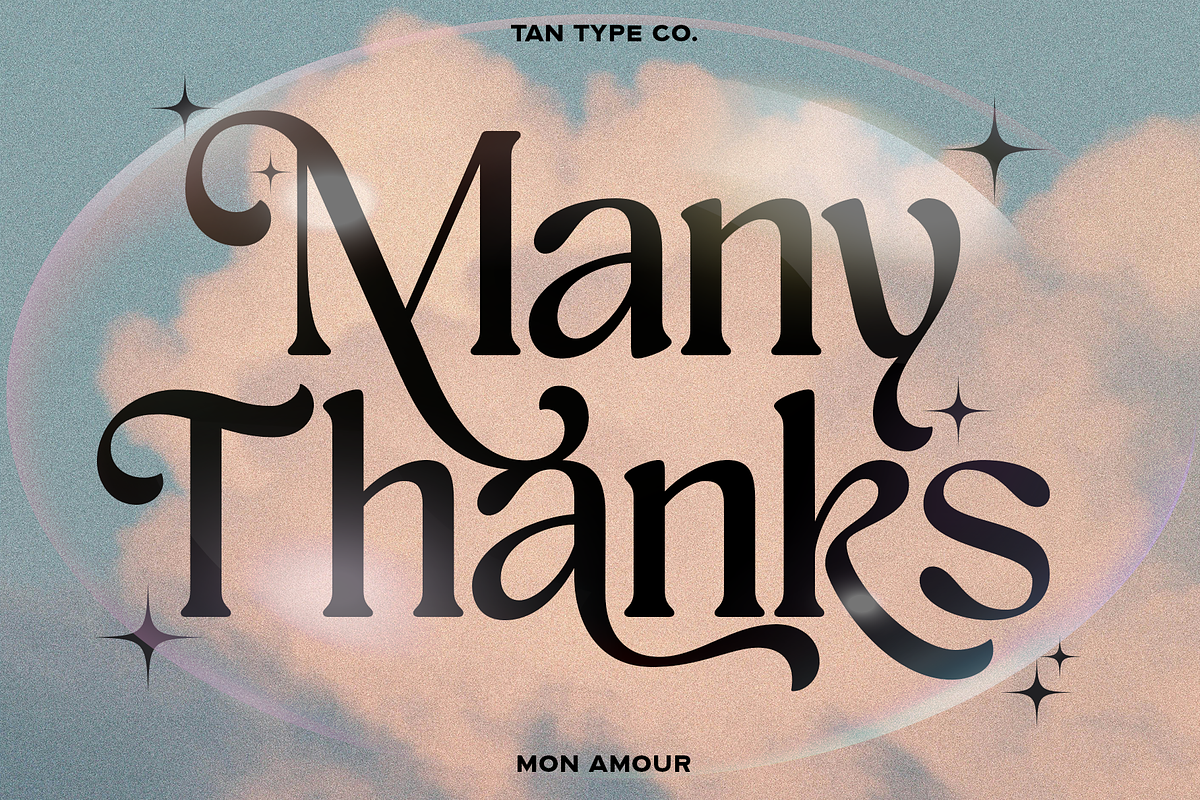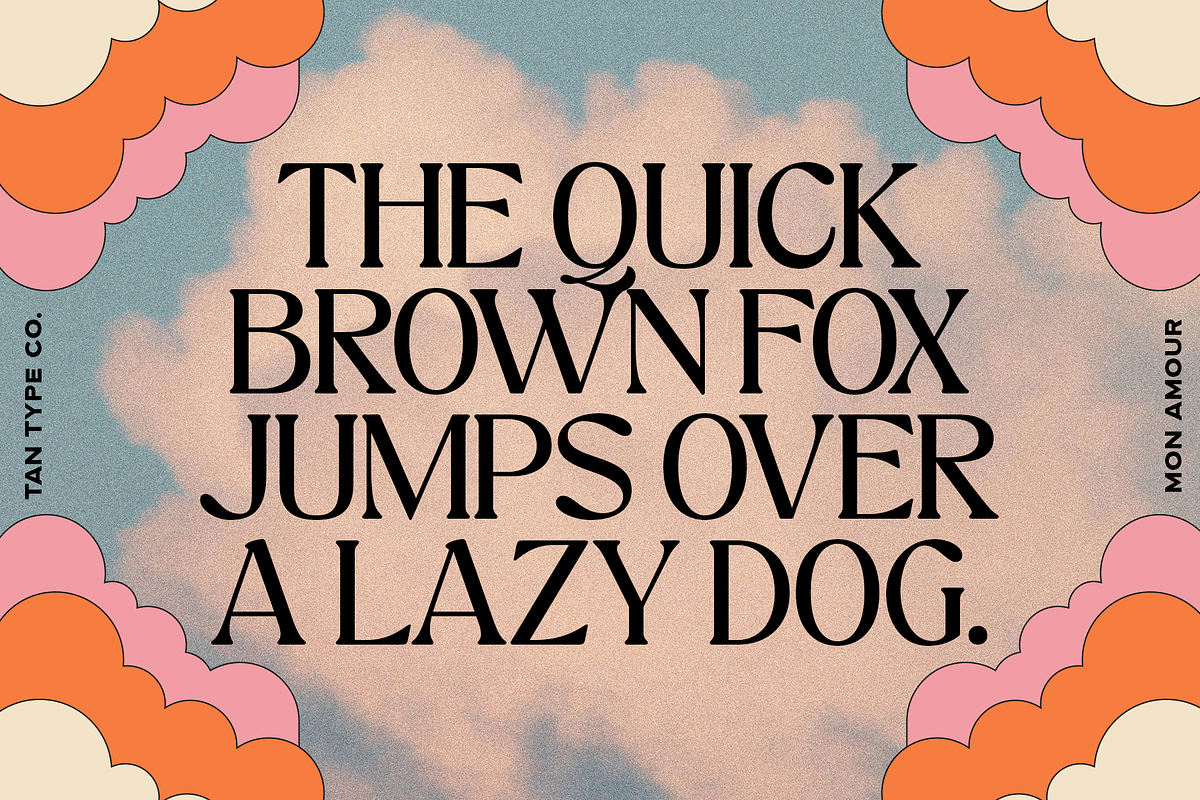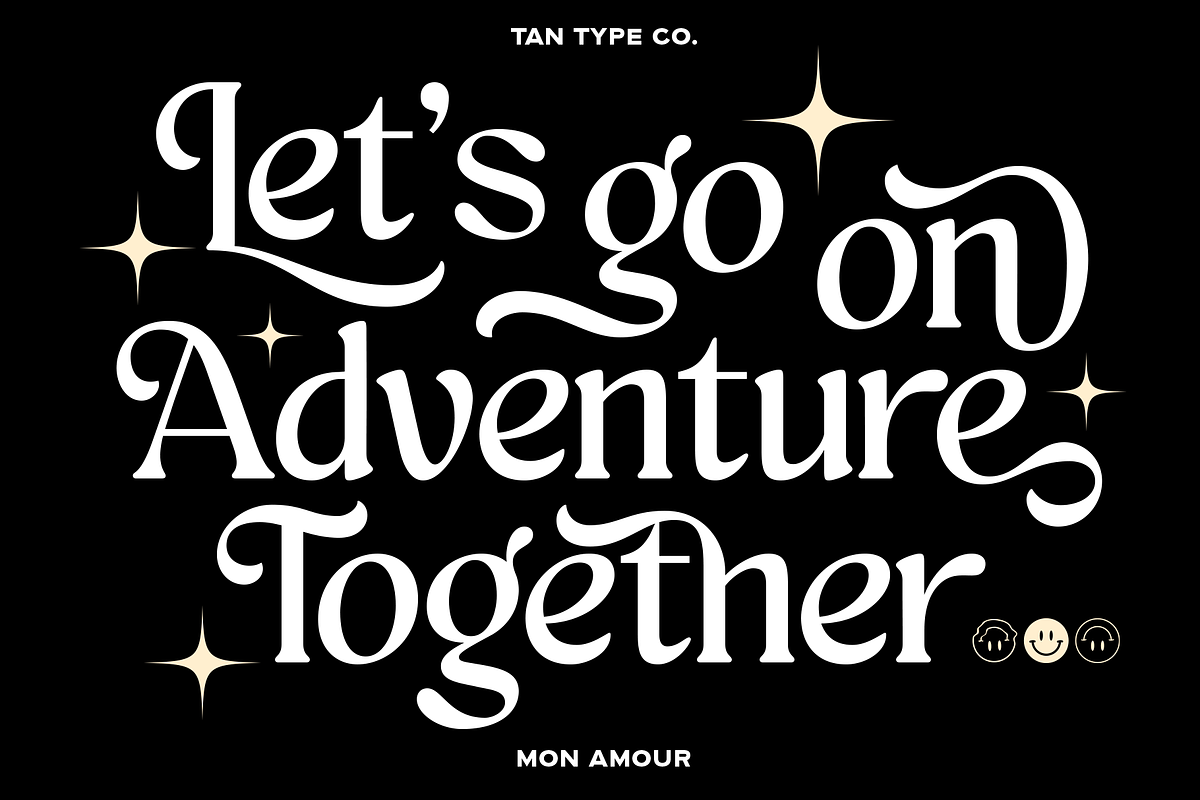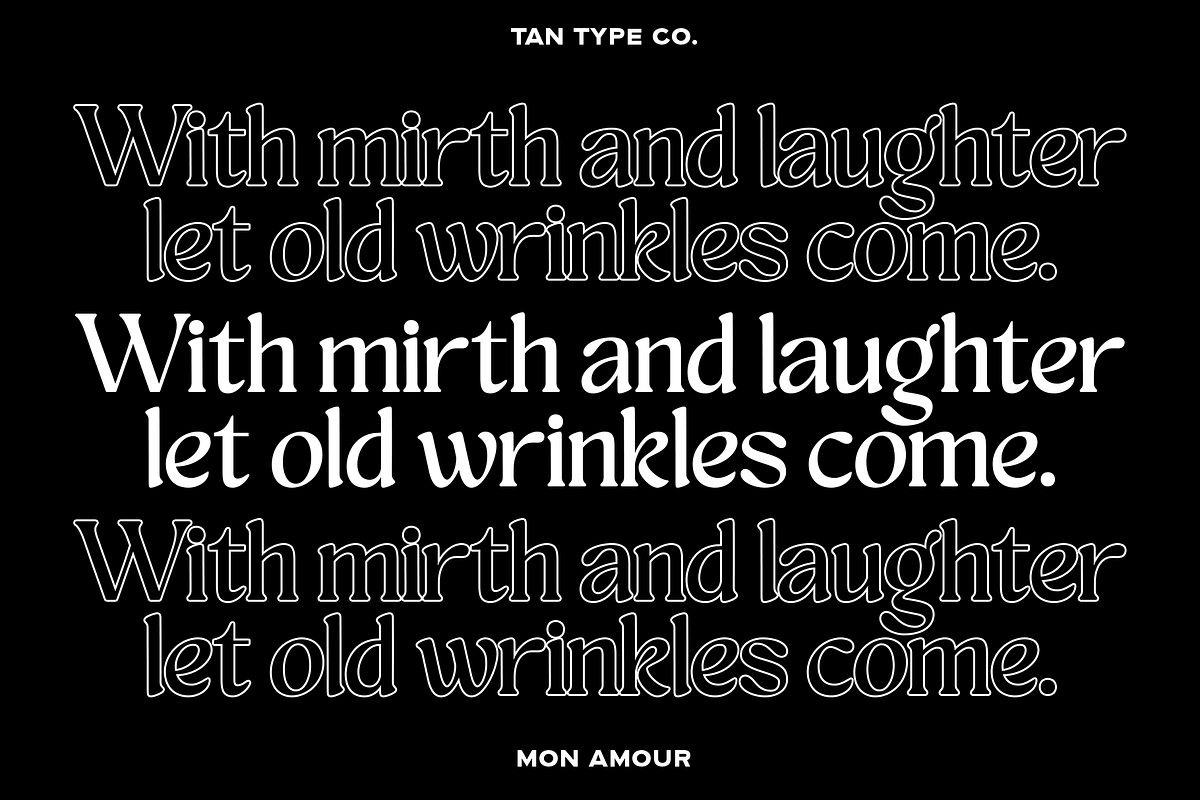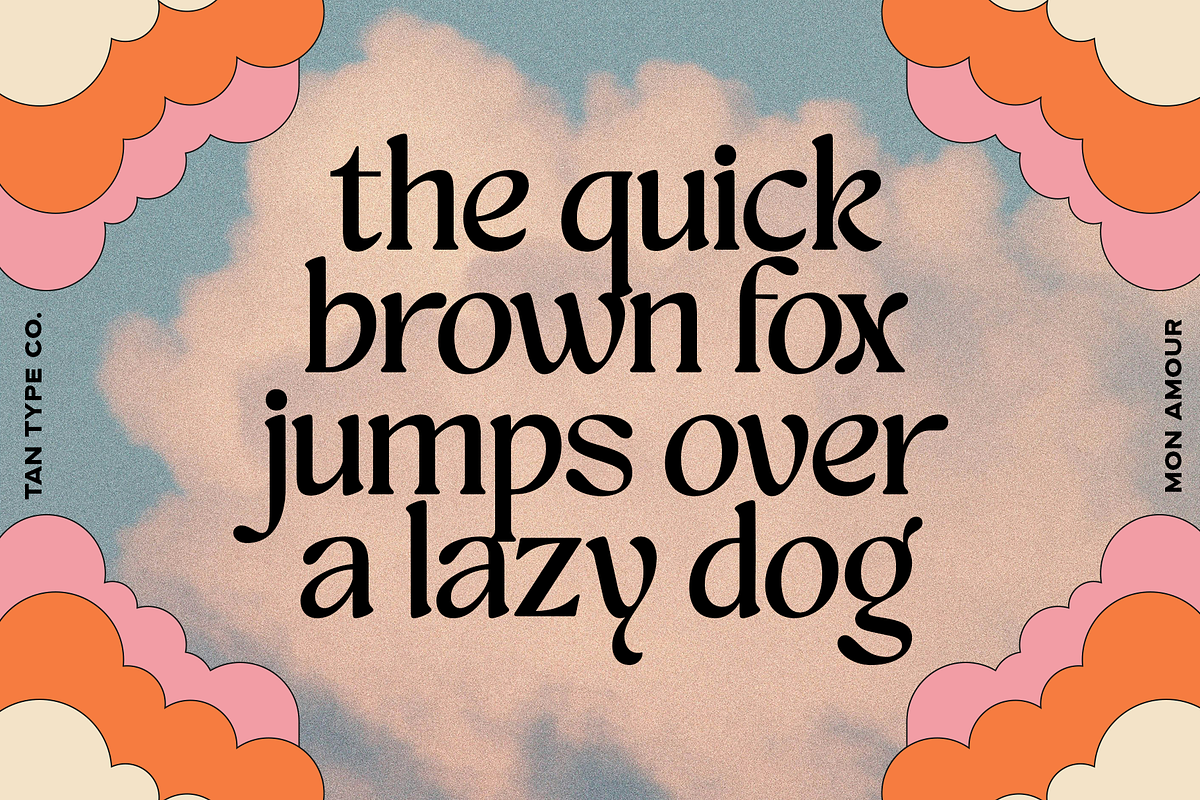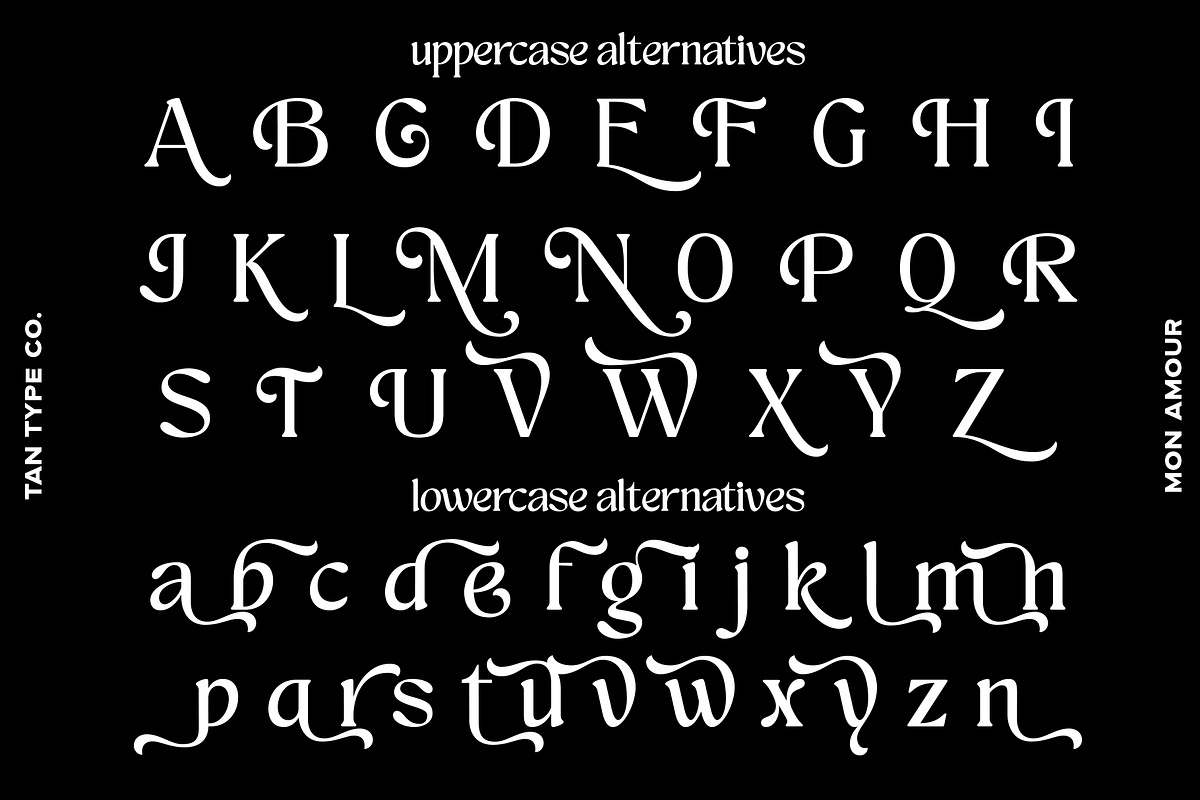
TAN - MON AMOUR
Mon Amour is a cheerful retro typeface inspired by the charm of 70s lettering. Playful yet elegant, this font dances with curvy strokes, soft swirls, and a touch of nostalgia. Its rounded shapes and flowing alternates bring warmth and friendliness to any design — perfect for vintage branding, packaging, posters, and editorial headlines.
With tons of alternate characters and ligatures, Mon Amour lets you mix and match styles effortlessly, adding a personal and handmade feel to every word. Whether you want something romantic, groovy, or simply joyful, Mon Amour brings your message to life with a wink and a smile.